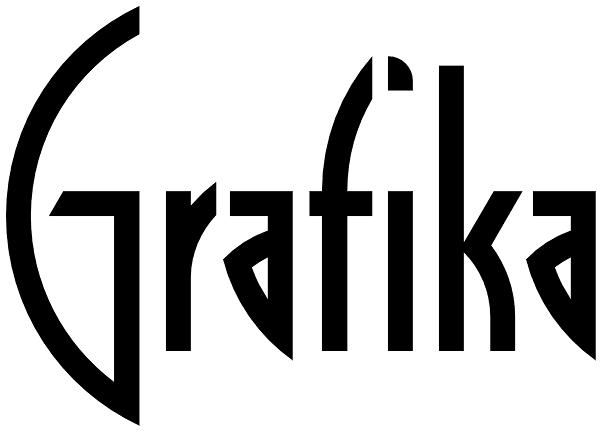
Grafika
Grafika is a completely original design, done in an “Art Deco” spirit reminiscent of the 1920s and ‘30s. I designed Grafika many years ago to be typeset for title cards, and both opening and end credits for the Merchant/Ivory feature film “Savages...